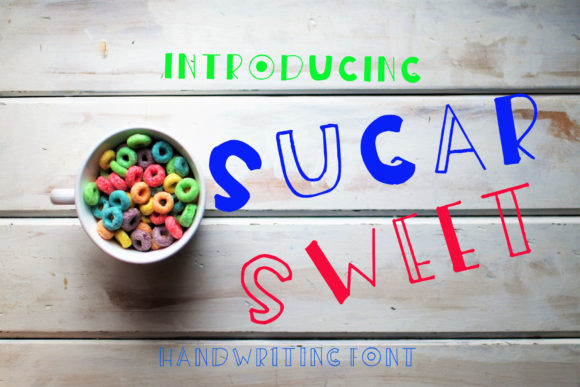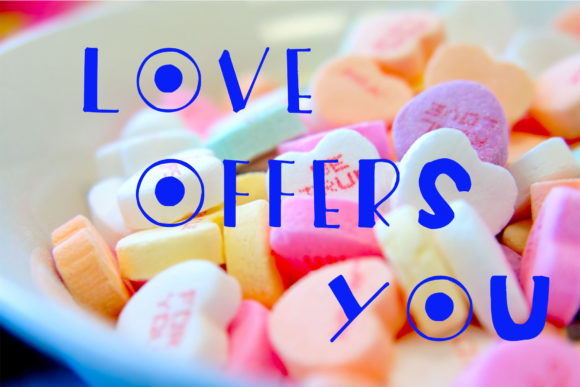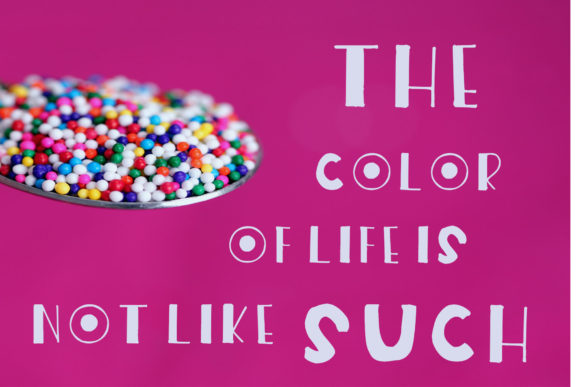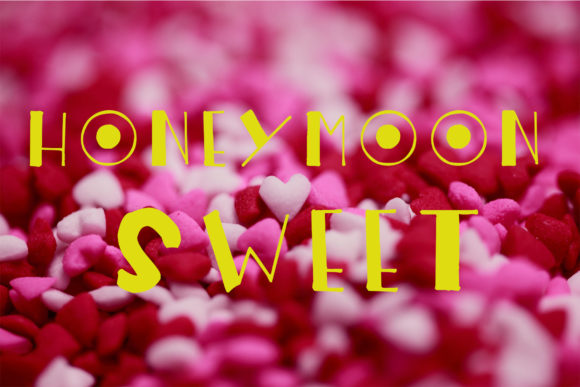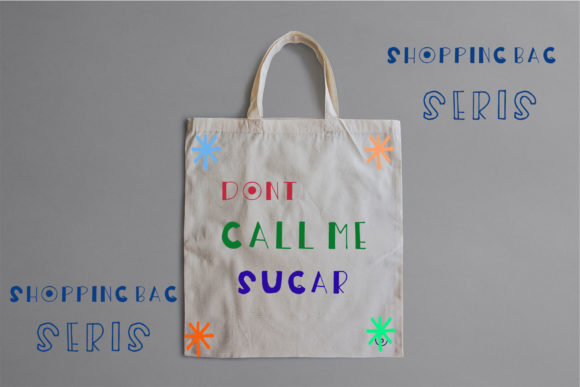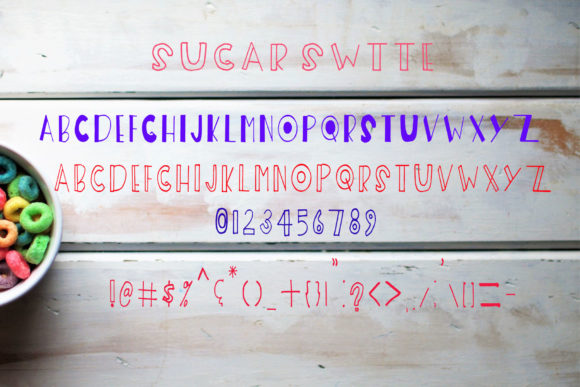
Sugar Sweet Font
About Sugar Sweet Font
Sugar Sweet is a casual, yet surprisingly diverse script font full of authenticity. Get inspired by its unique charm!